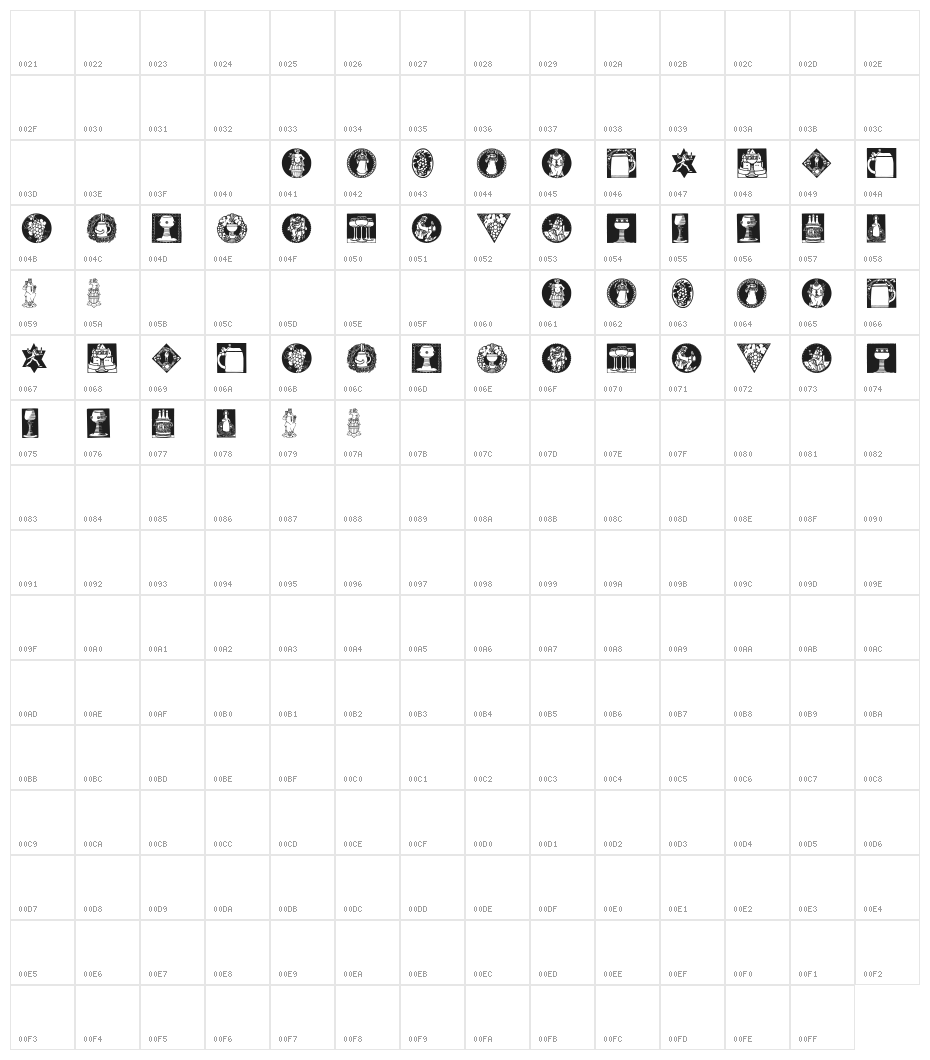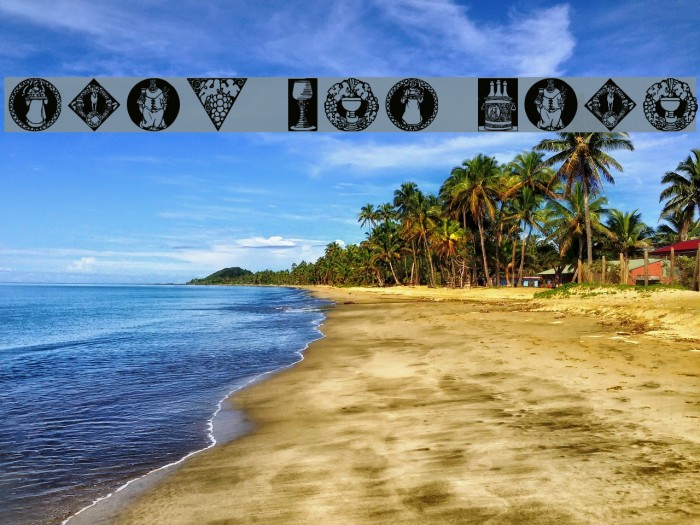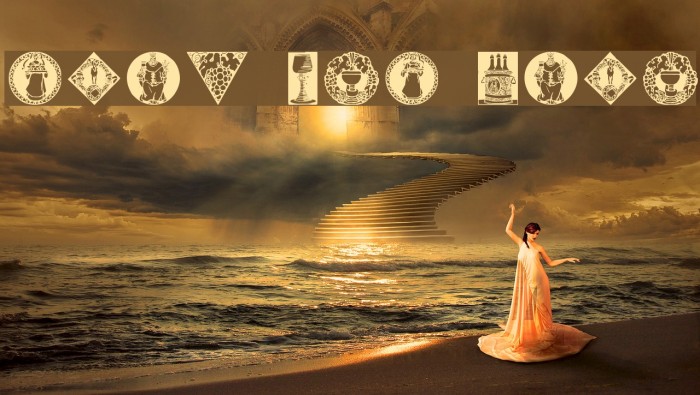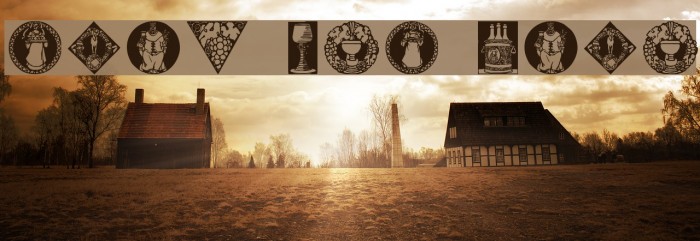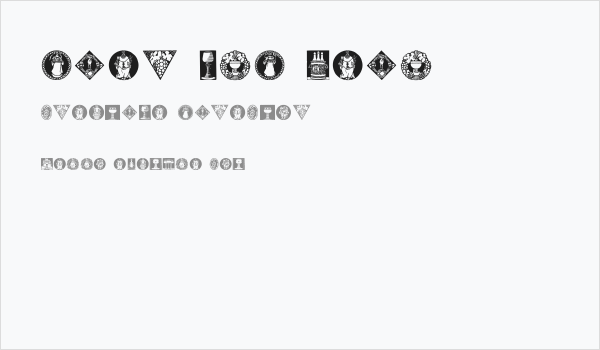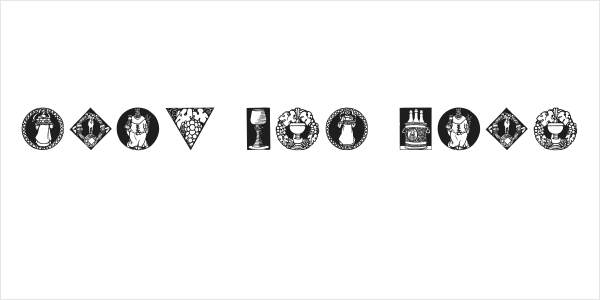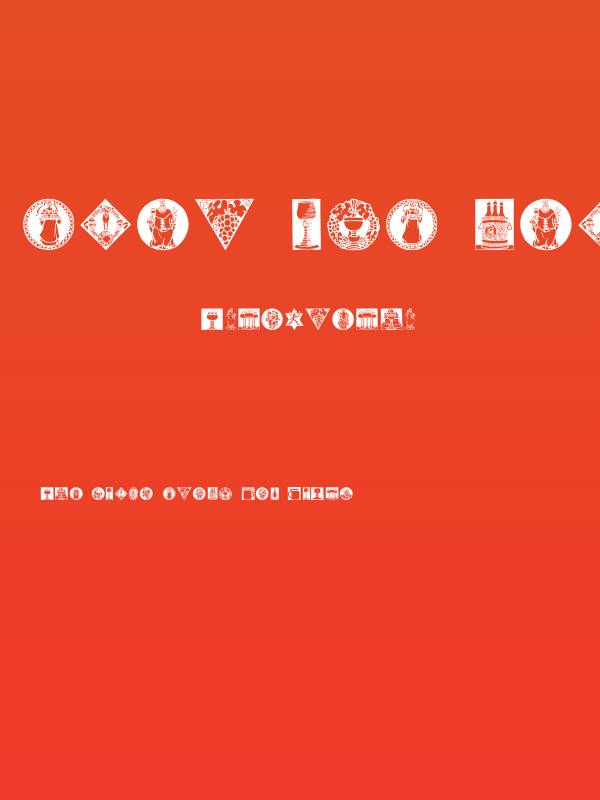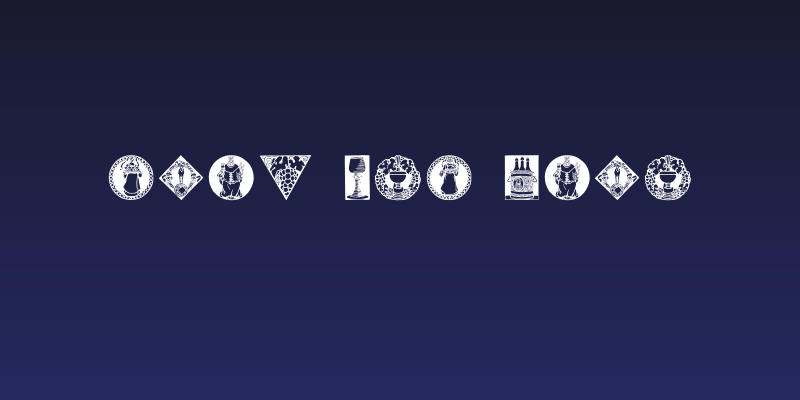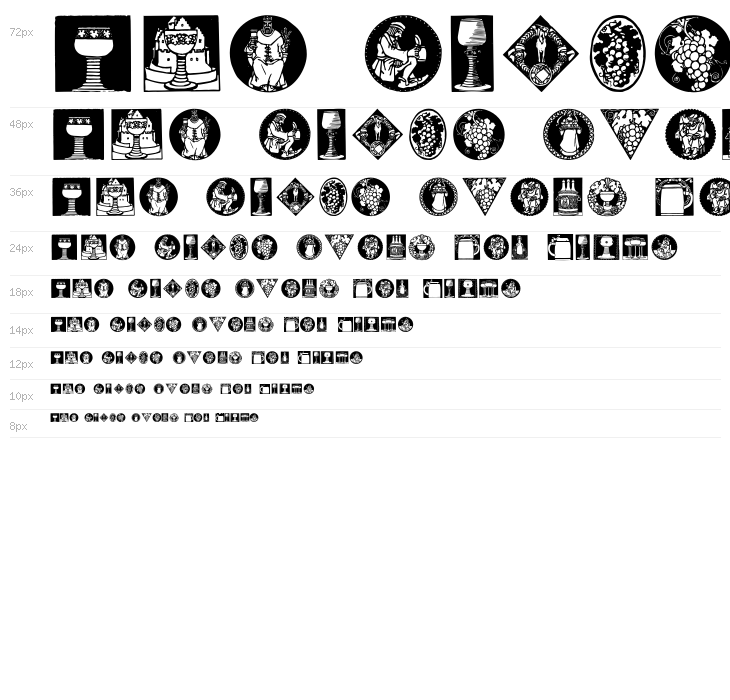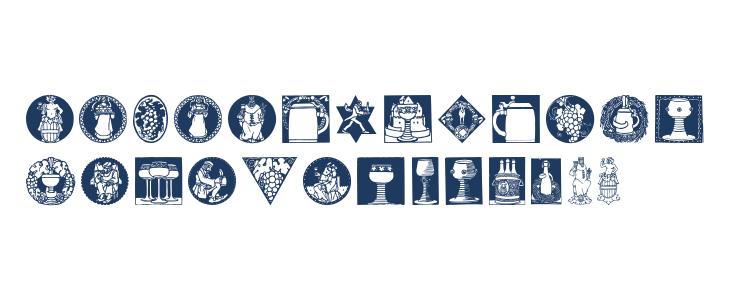
Bier und Wein Font
Bier und Wein Description
This is not a traditional font but rather a collection of decorative icons and illustrations themed around beer and wine. Each character is represented by a unique graphic, such as beer mugs, wine glasses, grapes, and other related imagery. These icons are enclosed in various shapes like circles and diamonds, providing a playful and thematic visual experience. The style is whimsical and illustrative, making it suitable for creative and themed projects. The graphics are detailed, with a mix of solid and line art elements, offering a rich visual texture.
| Use Case | Logos, Decorative elements |
| Proposed Projects | Ideal for themed party invitations, brewery or vineyard branding, menu designs, and event posters. |